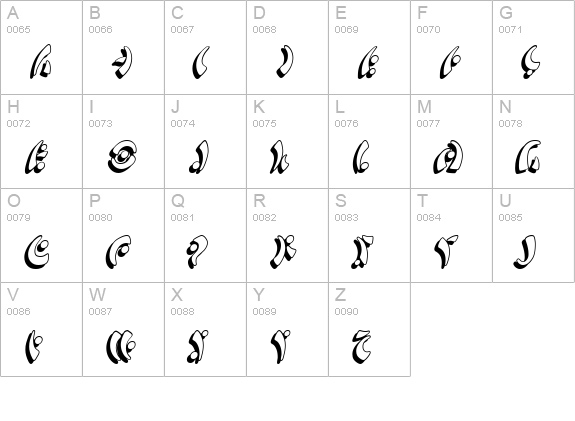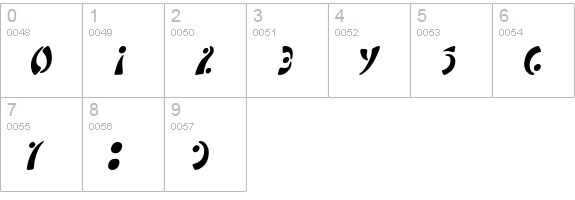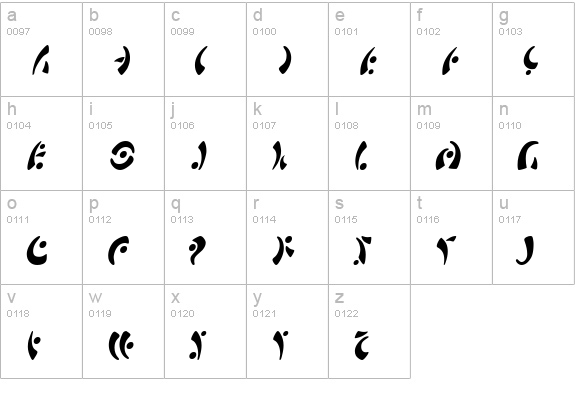
SF Fedora Symbols Font Details
SF Fedora Symbols font is a versatile and modern symbol typeface that adds a touch of sophistication to any design project. Featuring a range of unique symbols and icons, this font is perfect for adding decorative elements to your work. The clean lines and sharp details of the symbols make them stand out on the page, making a bold statement in any layout. What makes SF Fedora Symbols font even better is that it is completely free to download. Yes, you read that right - you can access this stylish symbol font at no cost. Simply head over to FontsMarket.com to download SF Fedora Symbols font and start using it in your projects today. With its sleek design and wide range of symbols, this font is sure to elevate your designs and impress your audience.